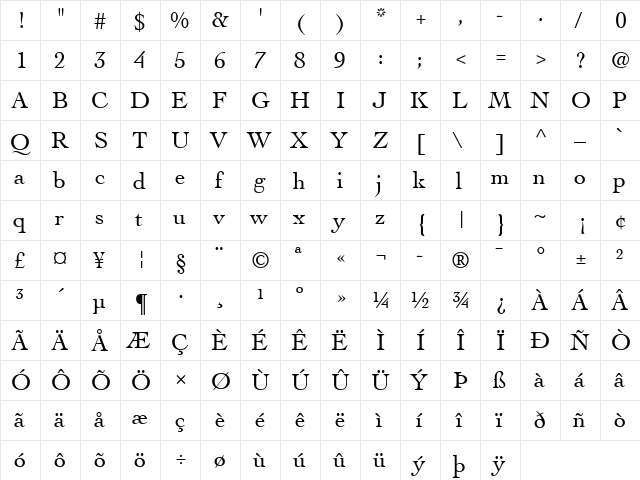
Cochin LT Regular
Design Context for Cochin LT Typeface
Cochin LT takes a measured approach to typography — its balanced proportions and neutral character make it a reliable workhorse for both digital and print work. Its slender proportions lend an understated elegance to any composition.
Pro Tip: Pair Cochin LT with a font of contrasting weight or personality to build a more expressive typographic hierarchy.